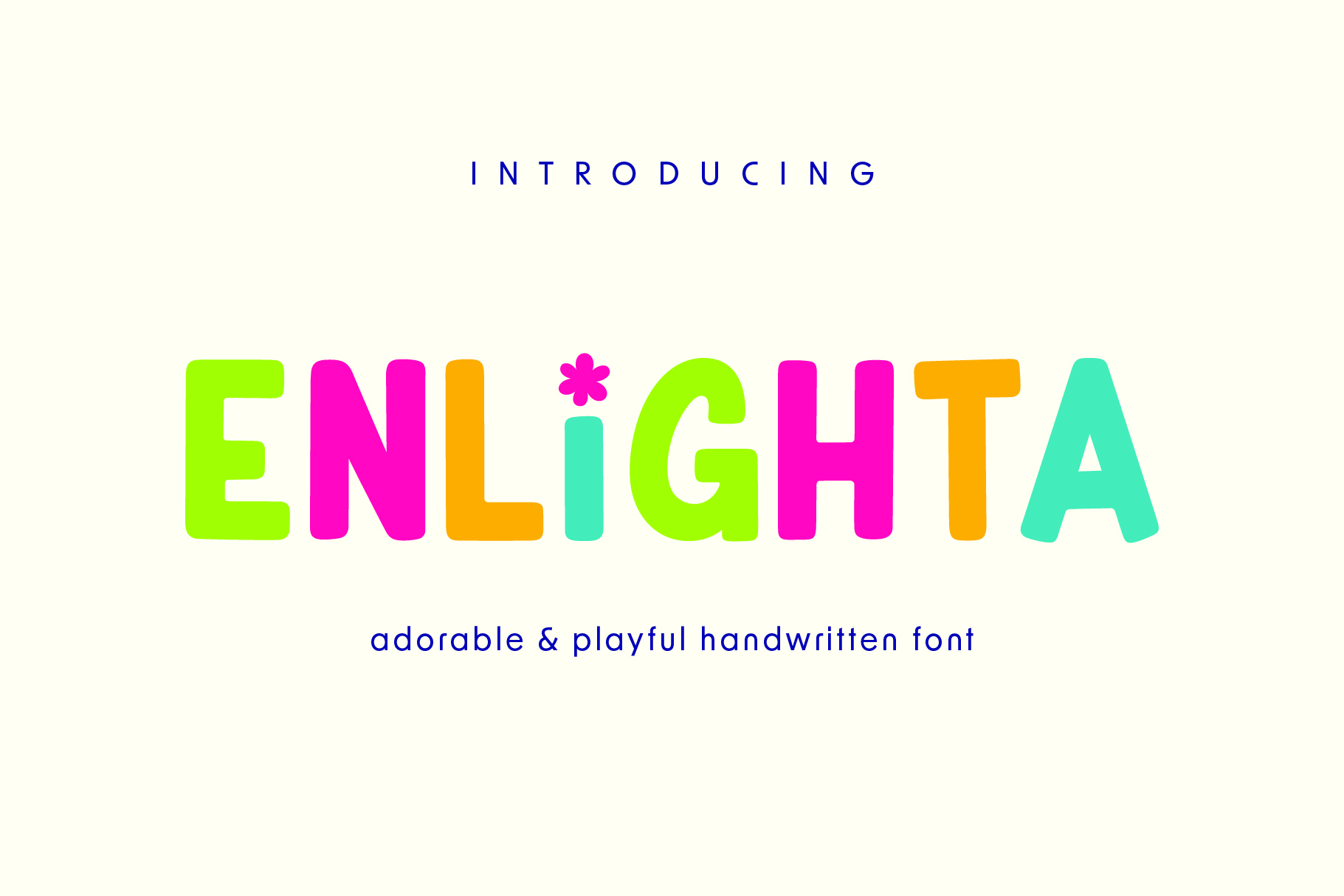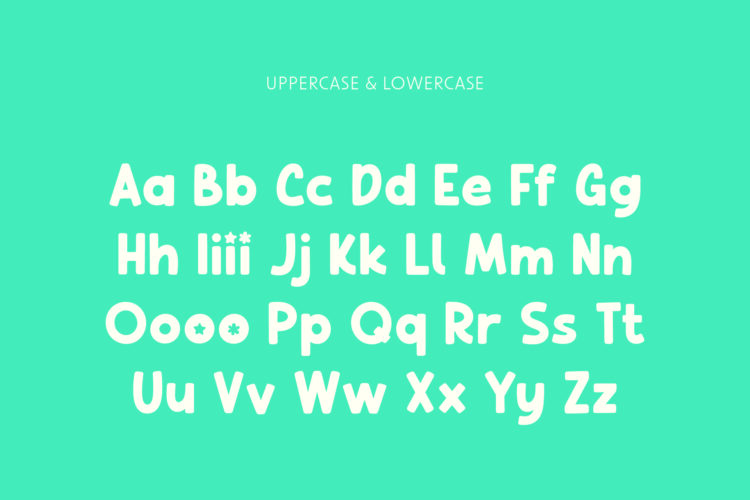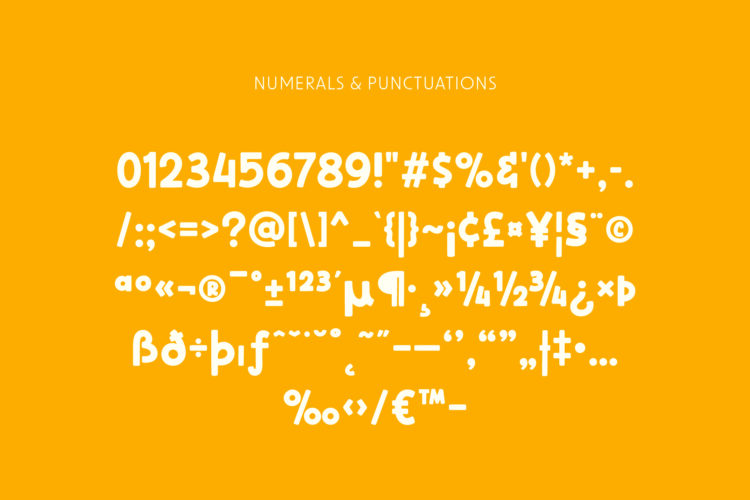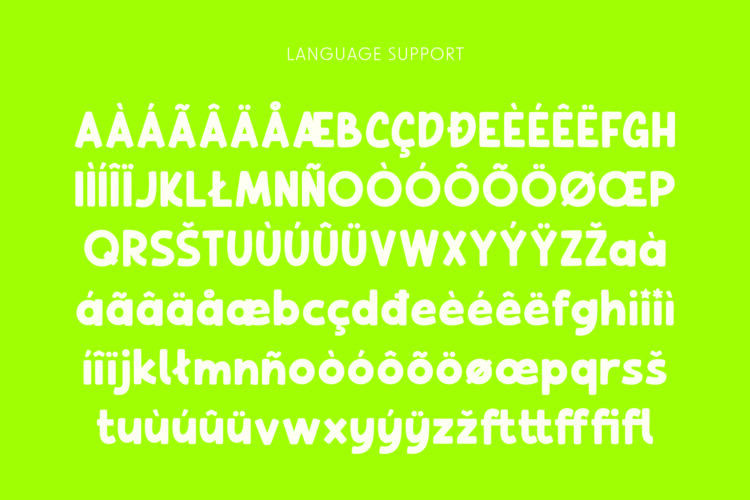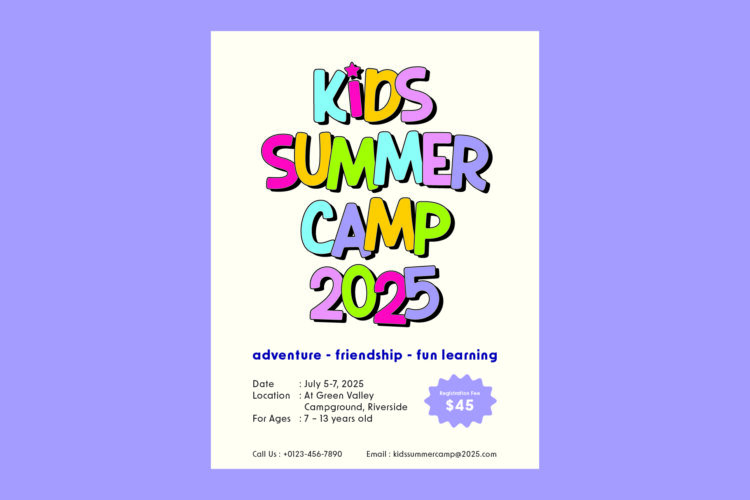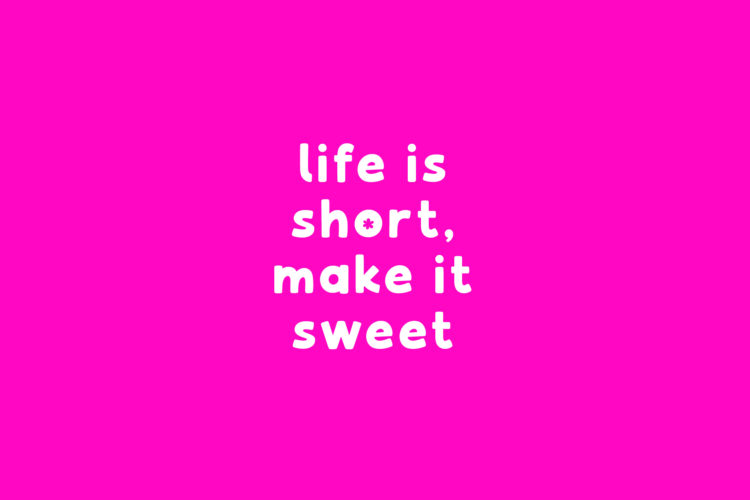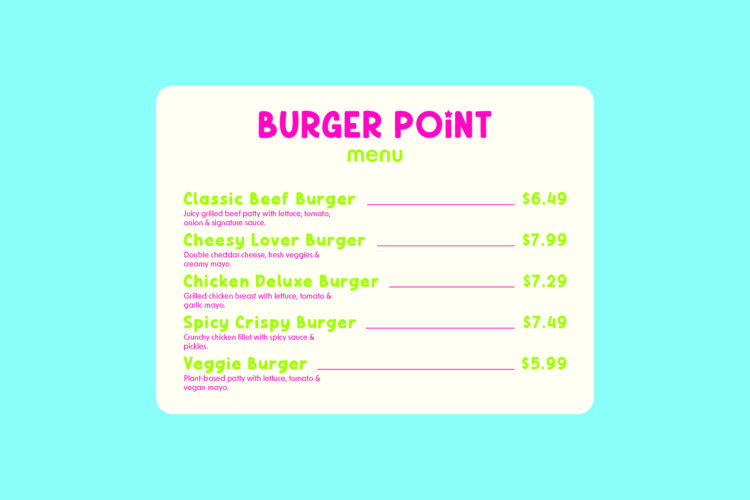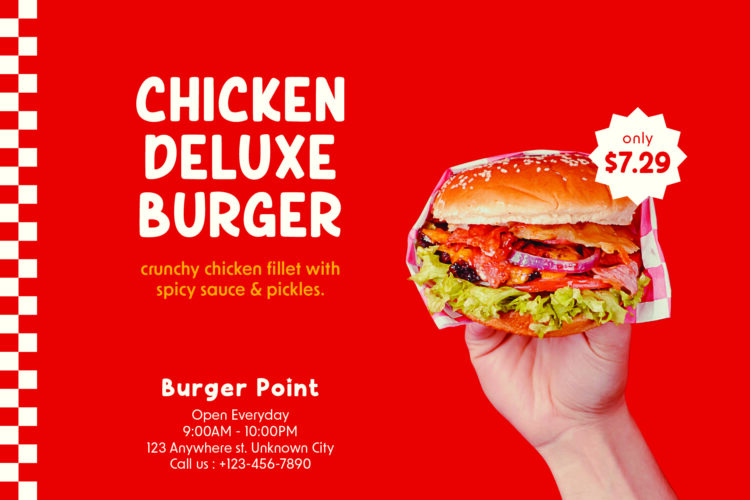
PGR Enlighta
Meet PGR Enlighta, a bold and playful handcrafted display font that fills your designs with joy and creativity. Its thick, friendly letters bring a warm, handmade charm to every project. Each curve and stroke shows the care and energy behind its creation, giving your text a unique, lively feel.
PGR Enlighta offers uppercase and lowercase letters, numbers, and basic punctuation. Use it for posters, greeting cards, logos, and other creative projects. Whether you design for print or digital media, this font adds cheerful energy and helps every word shine.
PGR Enlighta – Playful Font